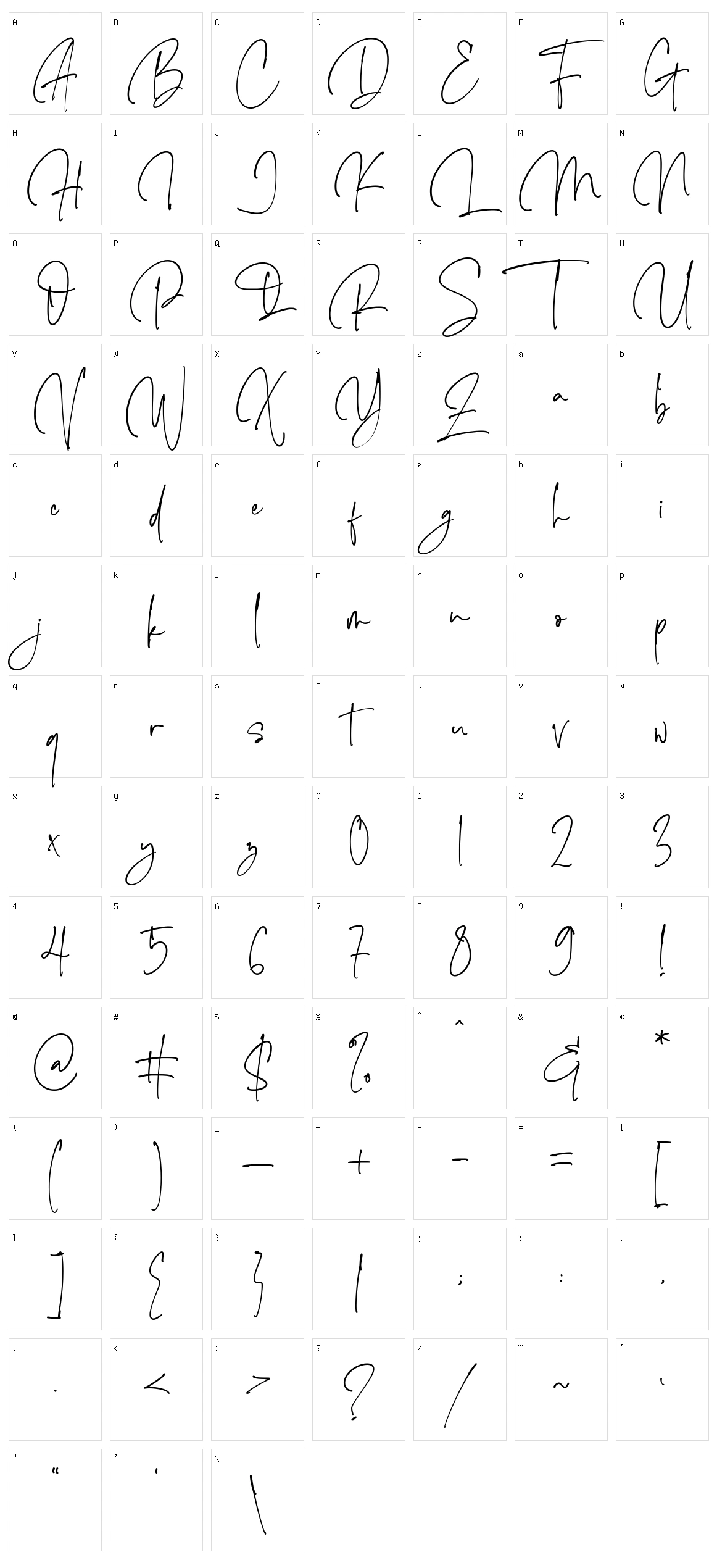
The free font The Imaginations is carefully designed by Asd Studio, showcasing a thoughtful balance of creativity and usability and falls under the Script font style. When you download the ZIP file, it contains only 164.58 KB of font files, making it lightweight and quick to download. Please review the license details below to understand permitted usage and distribution rights. If license information is not available, we recommend using this font for personal projects only or contacting the author directly for commercial usage permissions.